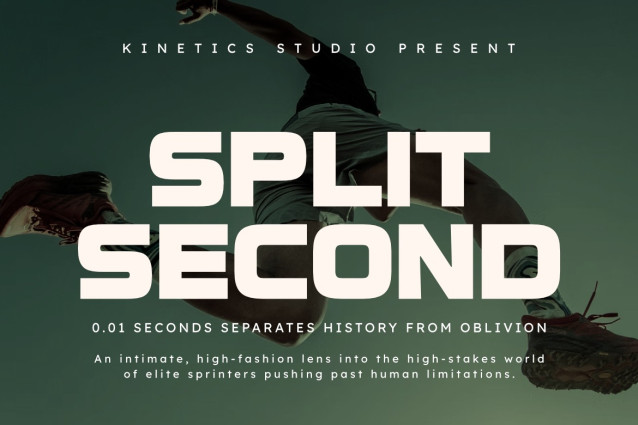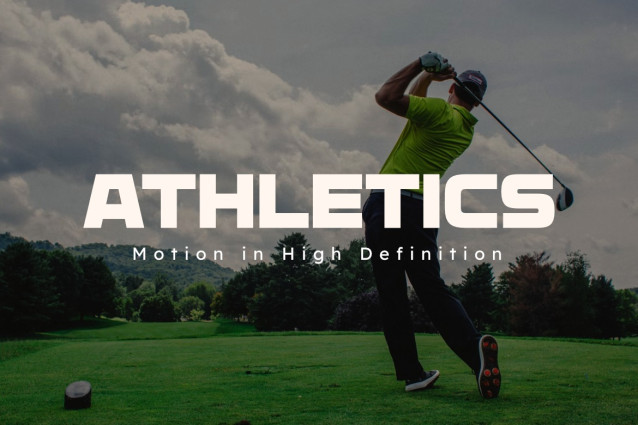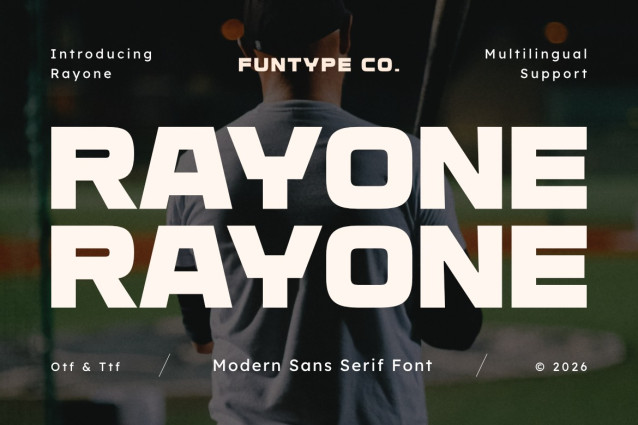
Rayone – Modern Sports Sans Serif Font
Rayone is a high-impact, bold, and modern sans serif display font, engineered to deliver a solid athletic presence, robust geometric block forms, and a dynamic display aesthetic to modern visual layouts. Built with heavy letterforms and subtle angular inner cutouts, Rayone brings an authoritative sports broadcast identity, baseball league graphics, high-energy tournament promotion, and prominent digital media presence designed to capture immediate visual attention.
This typeface is an ideal choice for creative directors, athletic event organizers, and media publication designers looking for a commanding typographical identity. Whether you are creating bold corporate logotypes, championship sports posters, energetic beverage packaging labels, cinematic action movie titles, outdoor billboard headers, or high-contrast web banners, Rayone delivers exceptional legibility and structural strength.